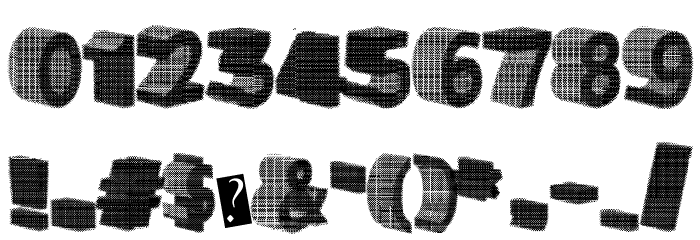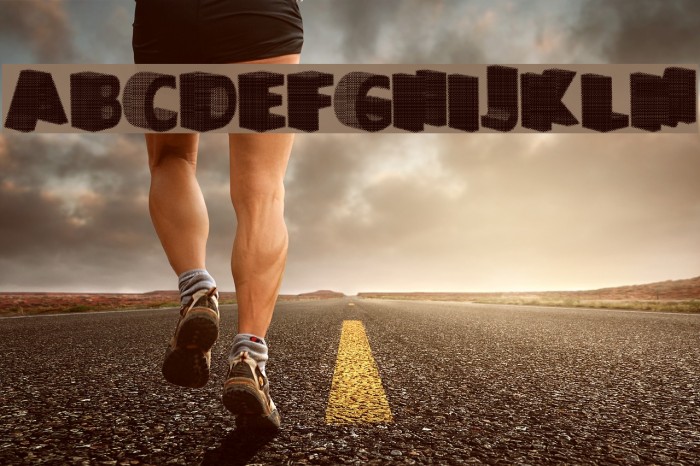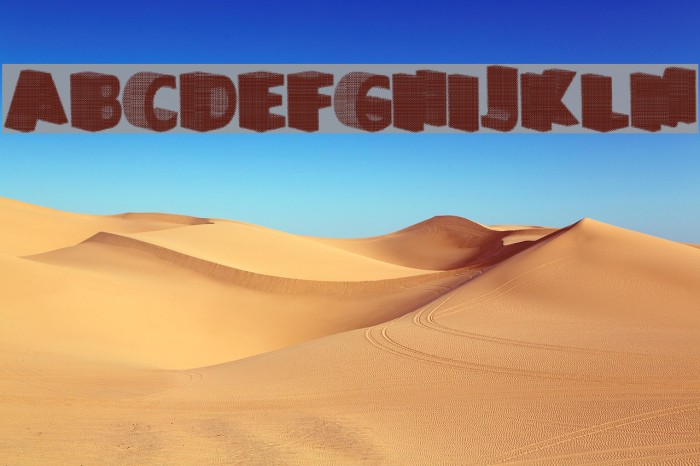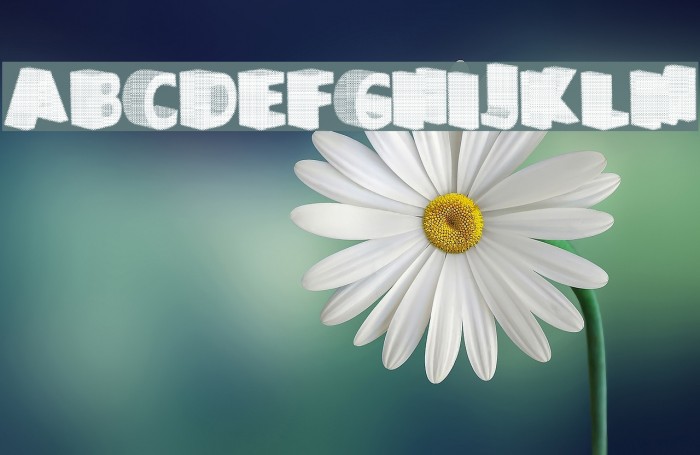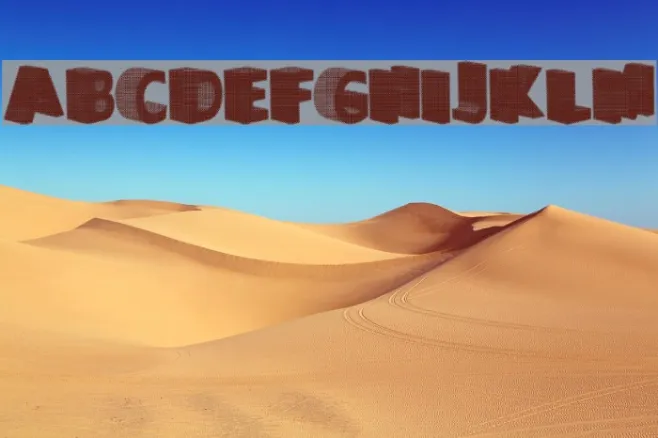
GreaterShadow Font
This font features a bold and dynamic style with a distinct shadow effect that gives it a three-dimensional appearance. The characters are robust and impactful, making them stand out with a textured, almost grunge-like finish. The uppercase letters are particularly striking, with a strong presence and a unique pattern that resembles a digital glitch or static effect. The numbers and special characters maintain this bold style, ensuring consistency across the font. This font's design is both modern and edgy, suitable for projects that require a strong visual impact.
A bold, shadowed font with a textured, three-dimensional effect.
- Proposed Projects: Ideal for posters, album covers, video game graphics, and branding that requires a bold statement.
- Overall Style: Modern, Edgy